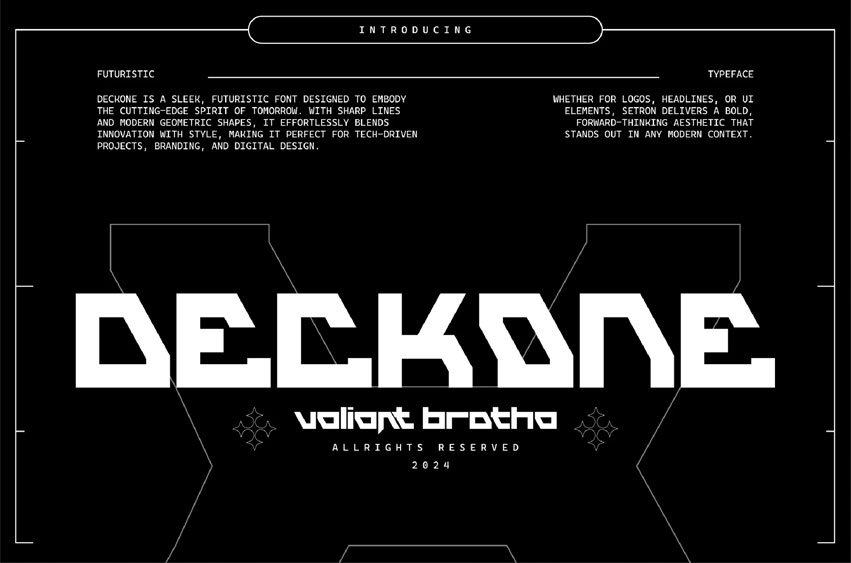
Deckone Font is a sleek, futuristic font designed to embody the cutting-edge spirit of tomorrow. With sharp lines and modern geometric shapes, it effortlessly blends innovation with style, making it perfect for tech-driven projects, branding, and digital design.
Whether for logos, headlines, or UI elements, Setron delivers a bold, forward-thinking aesthetic that stands out in any modern context.